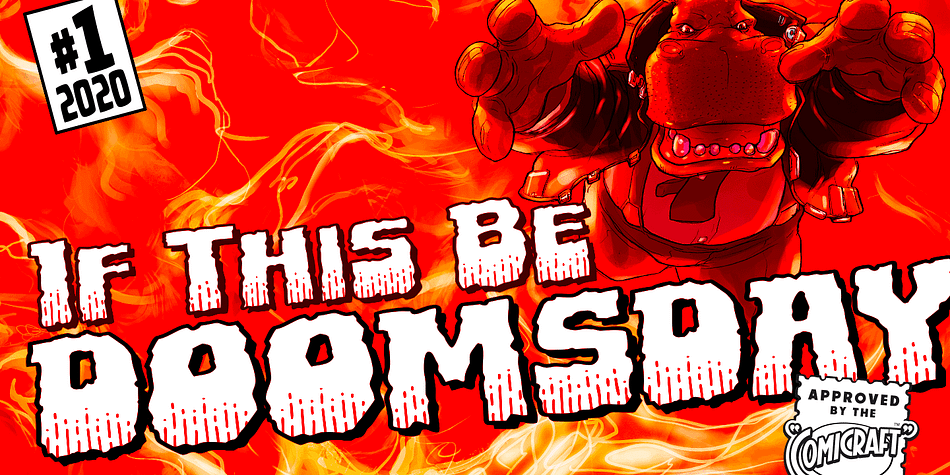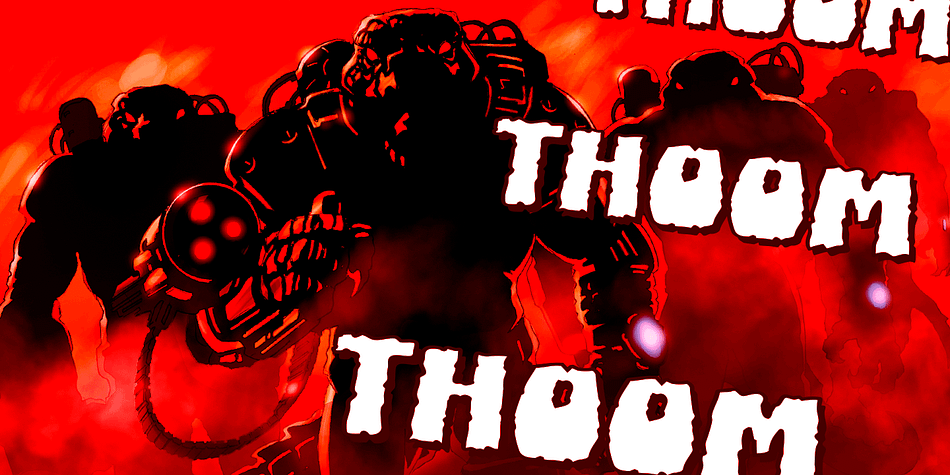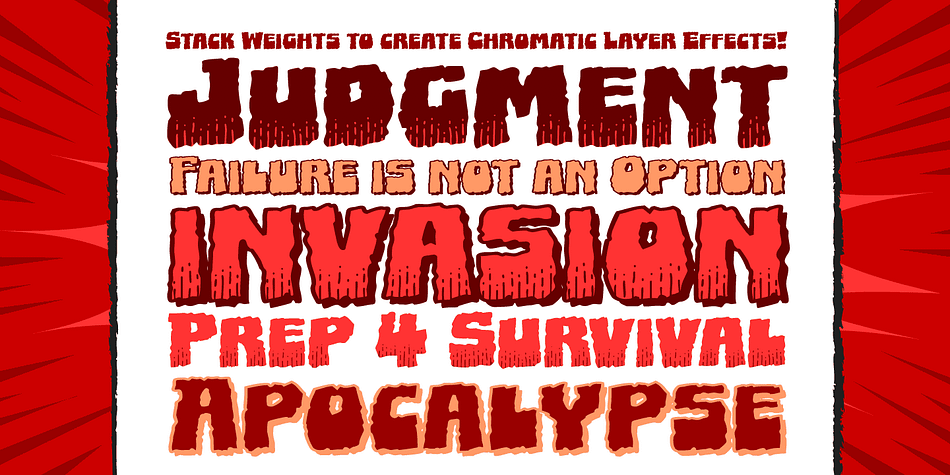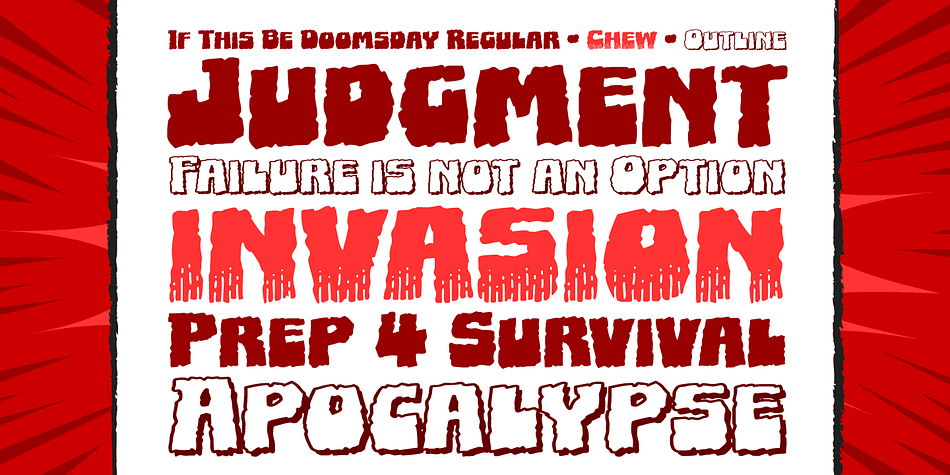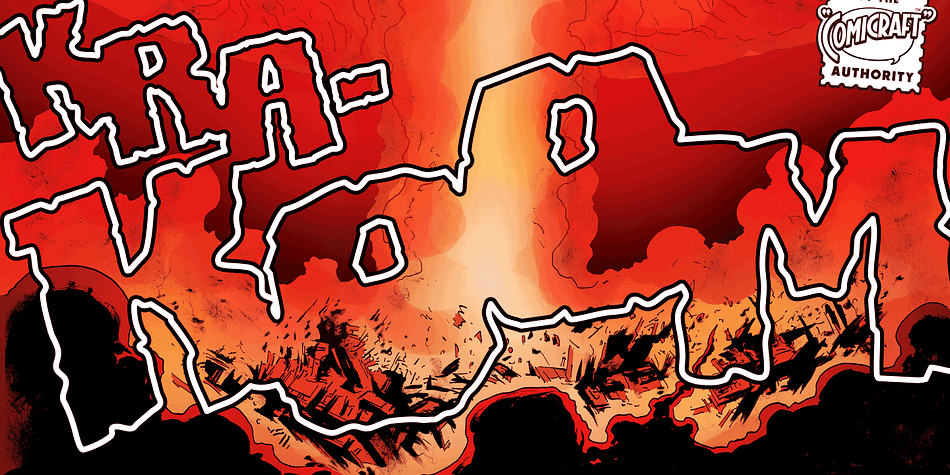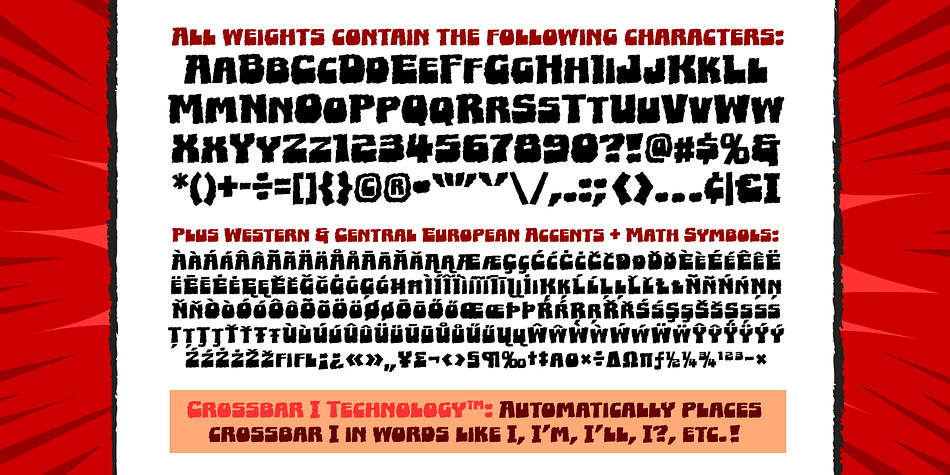
Designed by John Roshell, If This Be Doomsday is a comic font family. This typeface has three styles and was published by Comicraft.
THE END IS NIGH!
Judgment Day has come and this planet has been CONDEMNED! Do not conspire to hide what remains of your paltry world from my eyes! Know you not that NONE may thwart my will? Of what import are brief, nameless lives—to DOOMSDAY?? Death is Certain! Apocalypse is UNAVOIDABLE.
At last, my cosmic hunger will be sated, if only briefly! This planet shall SUSTAIN me until it has been drained of all elemental life! SO SPEAKS DOOMSDAY!
But do not fret. Even if the Domesday Book has been closed on your planet… your utter destruction is being made available in Font form, I call it IF THIS BE DOOMSDAY, and I will deliver it to you via comicbookfonts.com in Regular, (Roach) Chew and Outline weights. Never let it be said that DOOMSDAY is without mercy.
Three weights (Regular, Chew & Outline) with small cap characters and Western & Central European international characters.